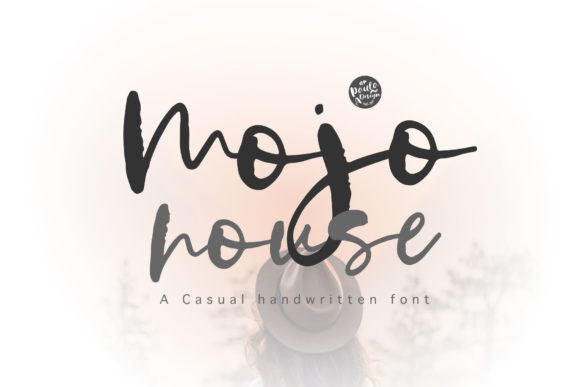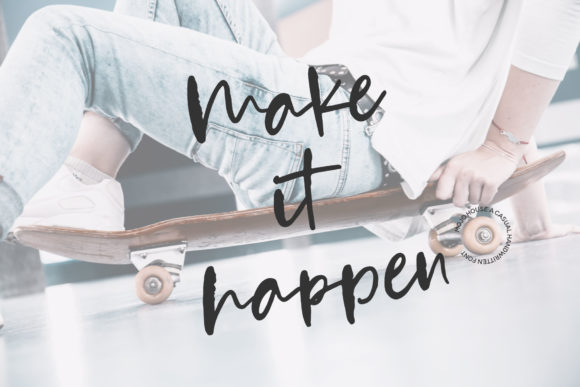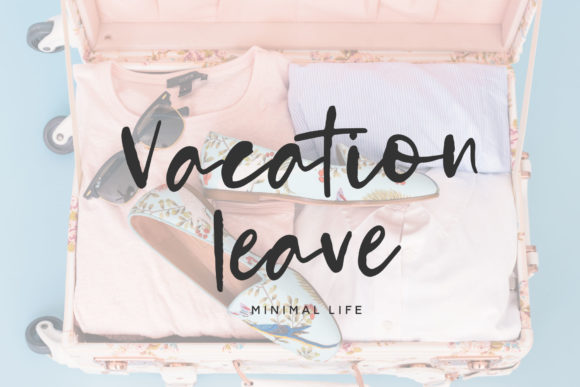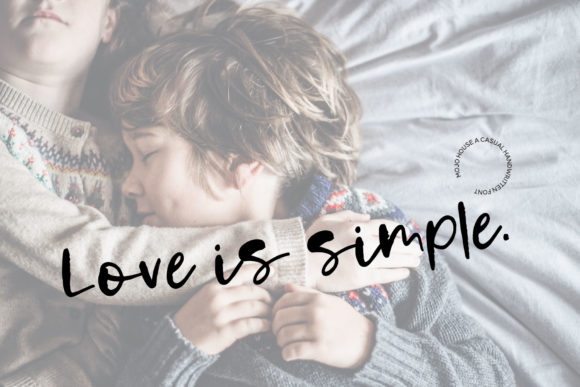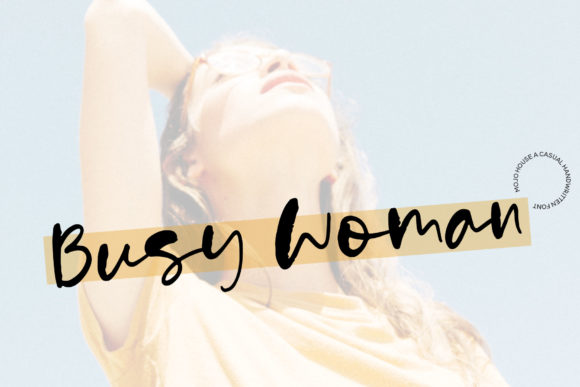
Mojo House Font
About Mojo House Font
The Mojo House is is a chic brush script. It has a great readability and is perfect for adding a modern touch to your designs.
It was designed for making your set of invitations, branding, blog posts, and more completely beautiful